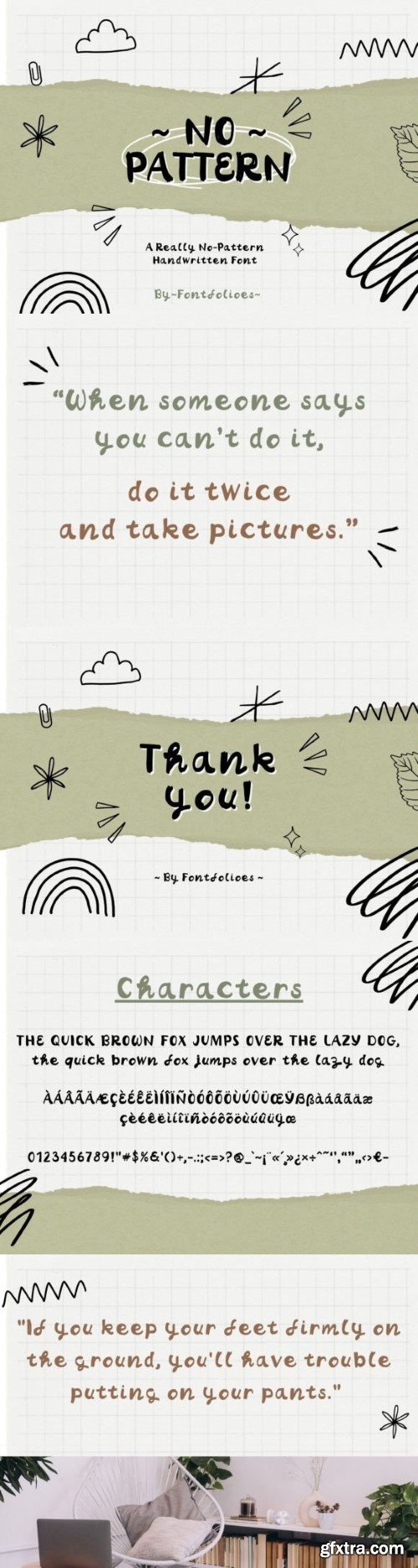
无图案字体
The font called "No-Pattern" is a straightforward handwritten style that is easily legible. The characters possess a distinctive characteristic where the thickness of the strokes varies, providing a direct and amiable impression.